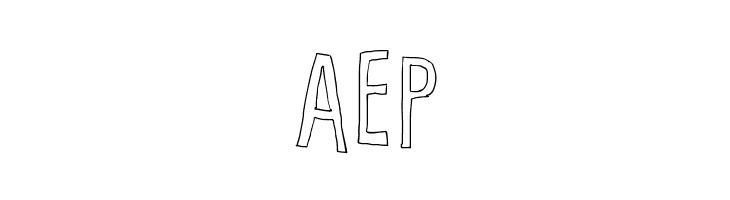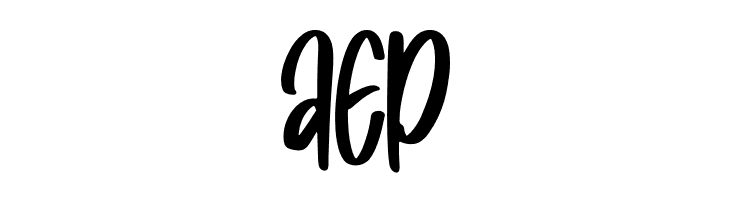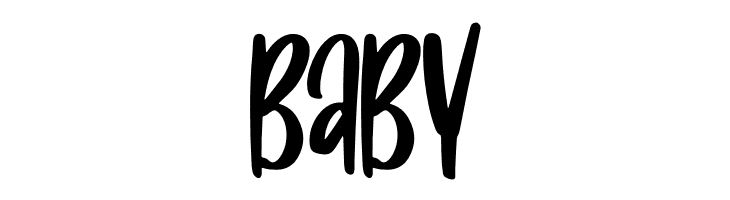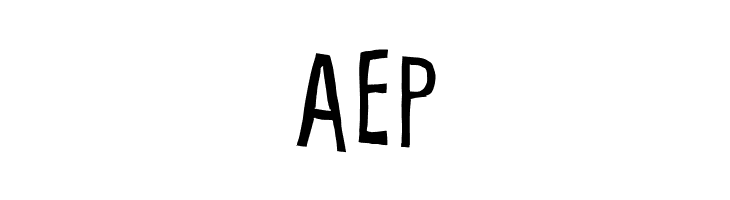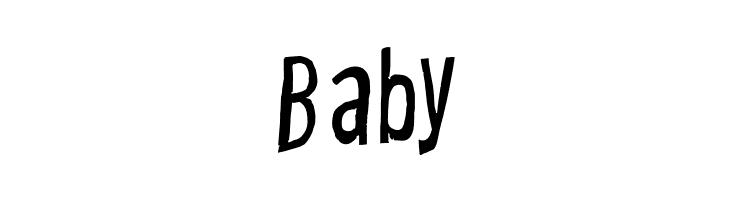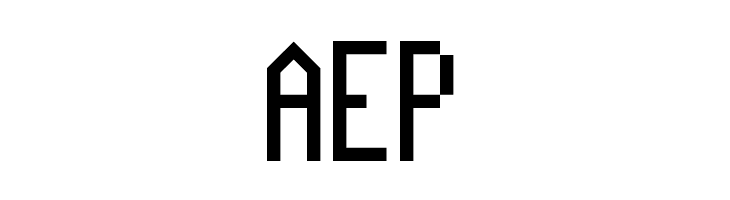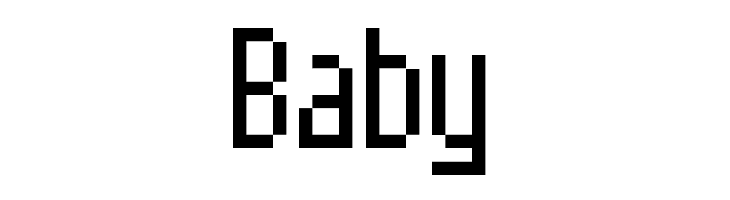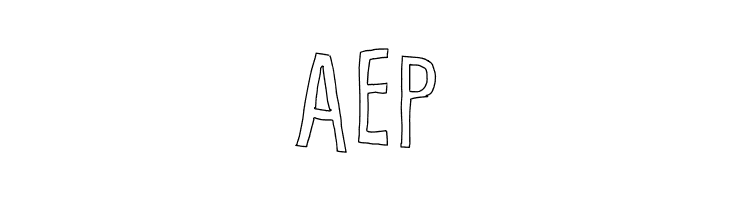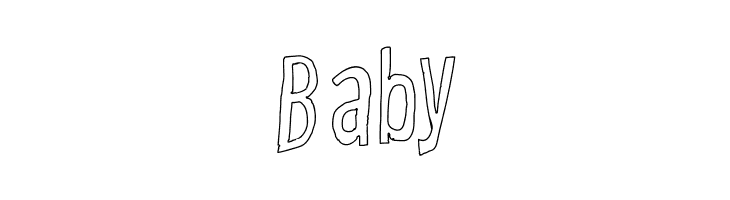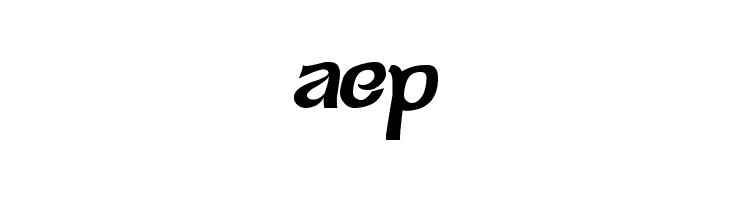
A playful, rounded font with a cartoon-like style.
A playful, rounded font with a smooth, modern design.
A playful, hand-drawn font with irregular, whimsical characters.
A playful, hand-drawn outline font with a whimsical and cartoonish style.
A playful, hand-drawn outline font with a cartoonish style.
Bold, playful handwritten font.
A bold, geometric font with a modern and robust style.
A playful, handwritten-style font with bold strokes and dynamic slant.